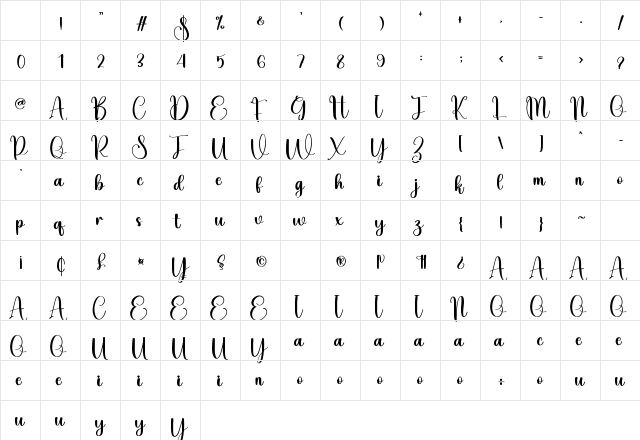
Backlight is a composed and adaptable typeface that performs quietly and consistently across a wide range of design contexts. Its slender proportions lend an understated elegance to any composition.
Pro Tip: Use Backlight in both headline and body roles to test its range before committing to a single application.